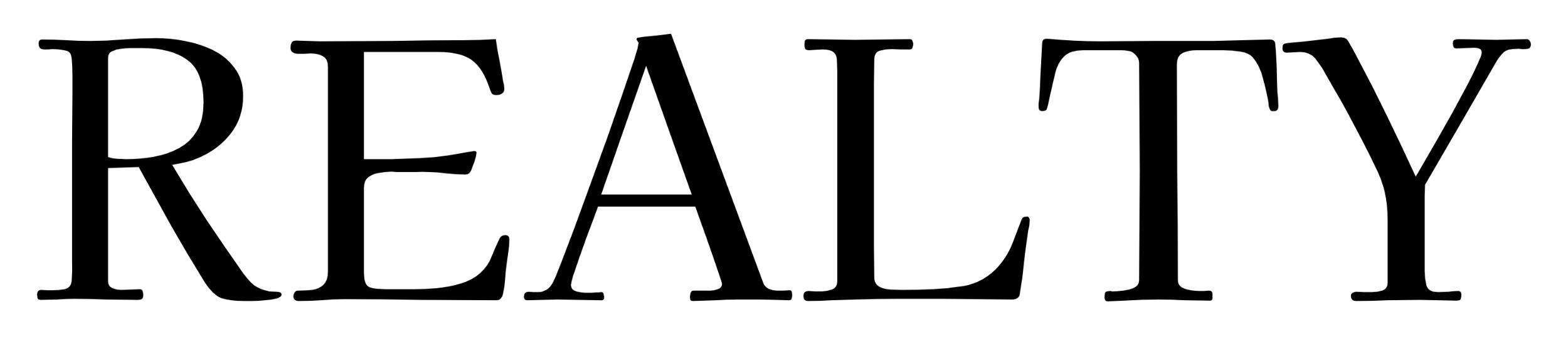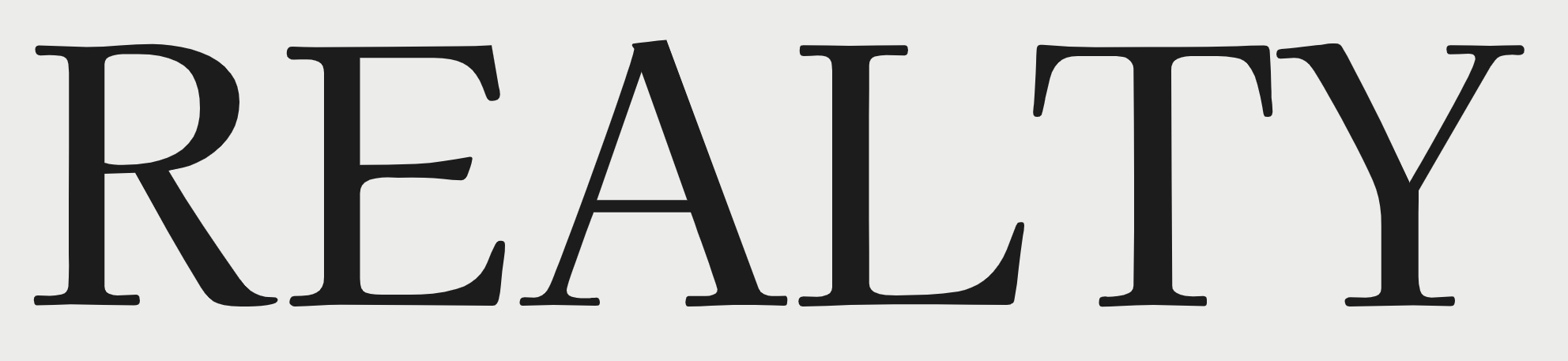
Looking for the font used in the logo of this DUDA.co Heritage Hotel website template
I'm trying to ID the font or fonts used in the text "REALTY 1997" in this DUDA template (hopefull the link works).
In the template, the font is an SVG graphic with outlined text, no font info available.
I'm wondering if this is a mix of two or more fonts? The "Y" seems out of step compared to the rest of the letters.
I have tried all the online font identifiers, but no solid matches.
I'd like to find the font(s), commercial fonts are fine, I just need the font name(s).